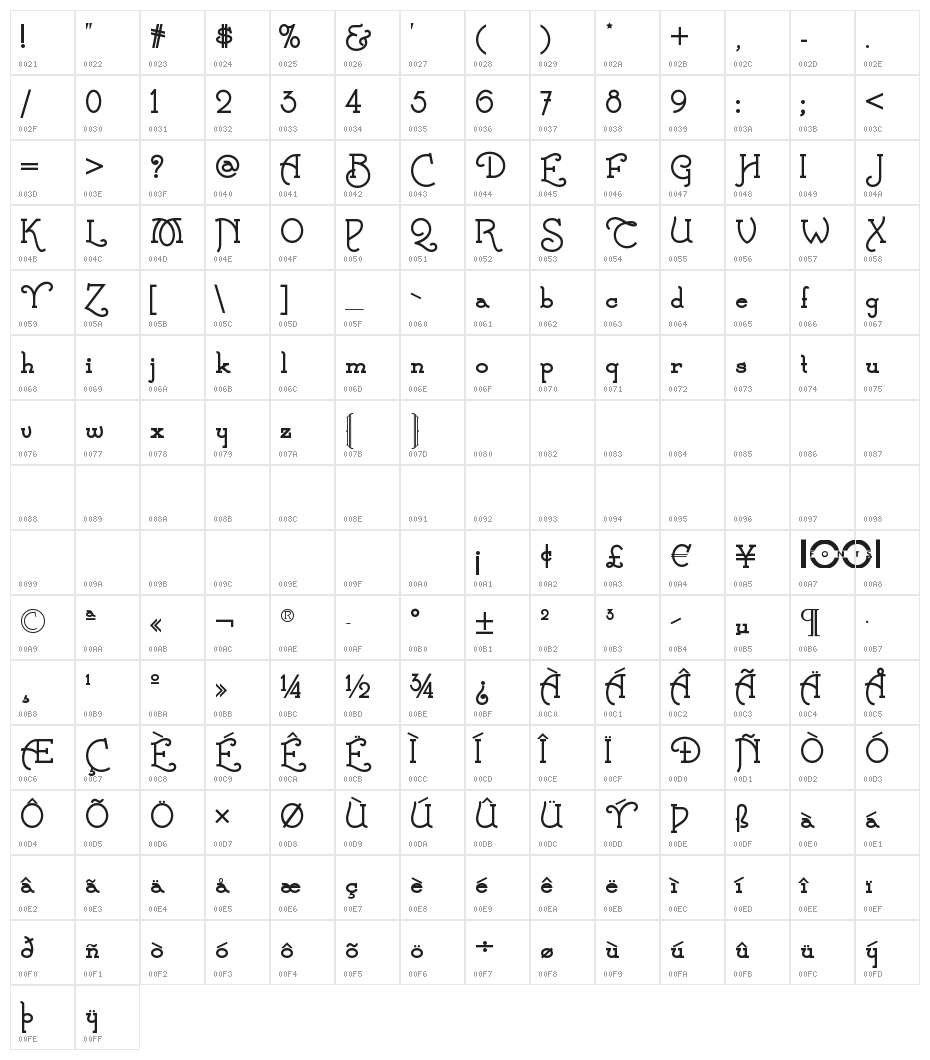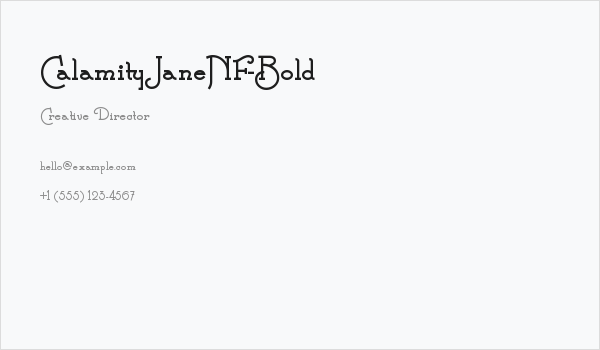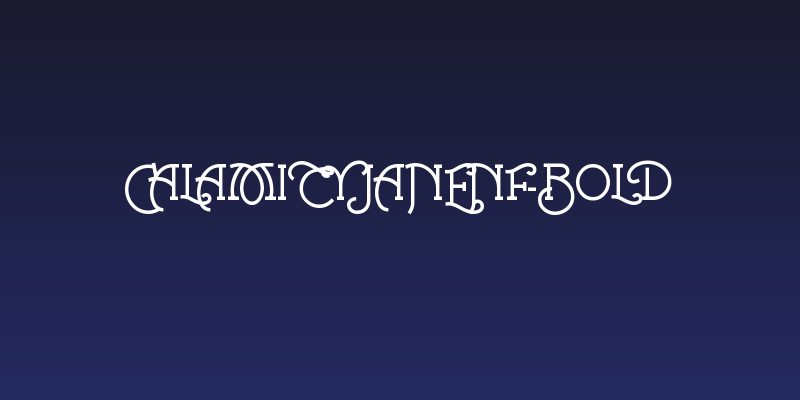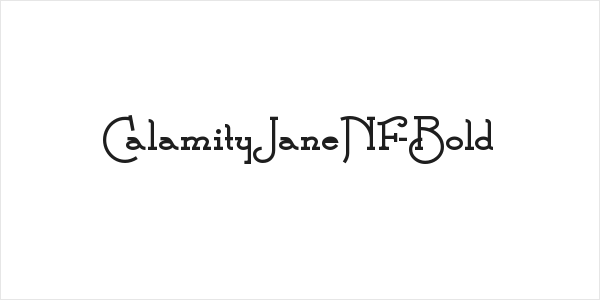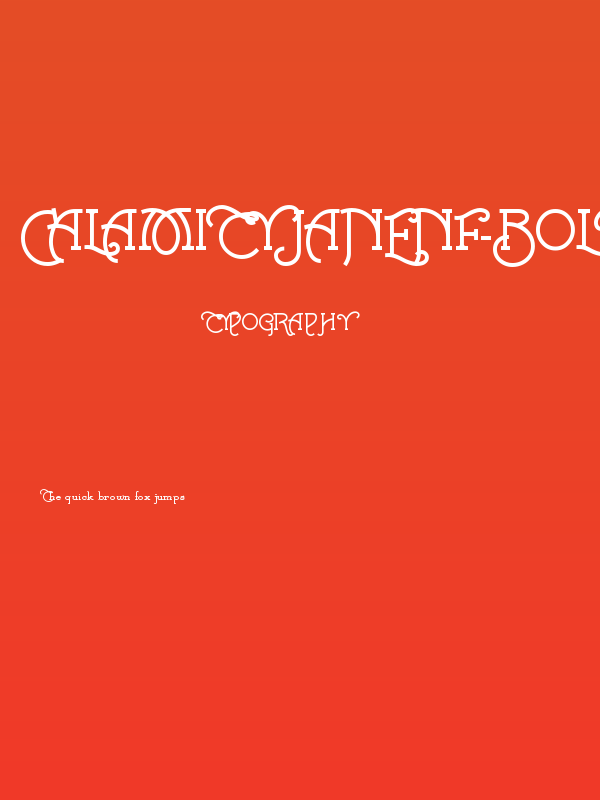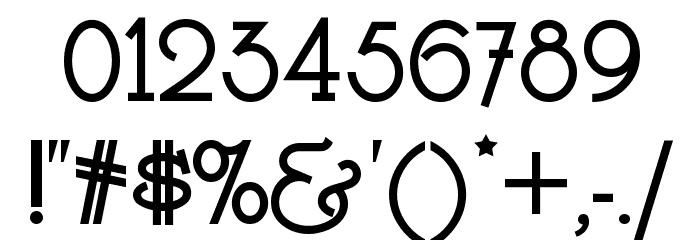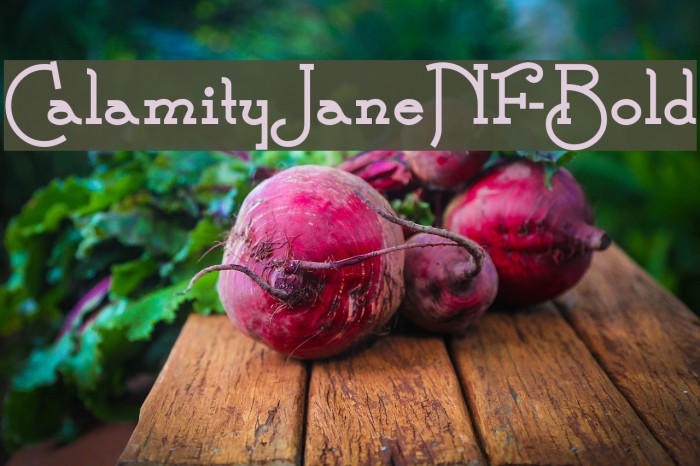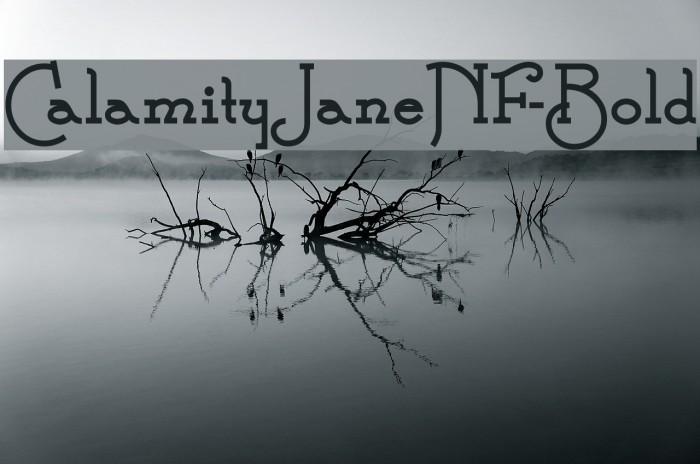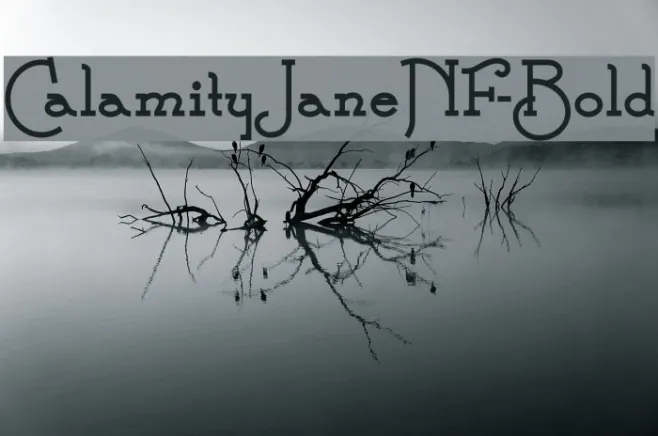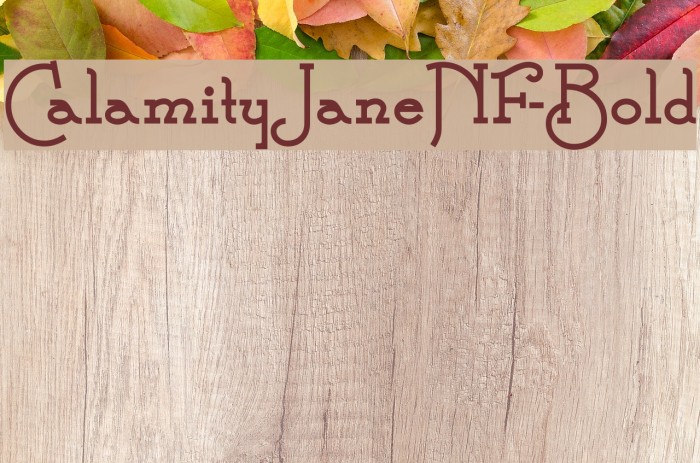
CalamityJaneNF-Bold Font
CalamityJaneNF-Bold Description
This font features a bold and decorative style with a unique blend of vintage and western influences. The uppercase letters are characterized by their intricate curves and flourishes, giving them a distinctive and ornamental appearance. The lowercase letters maintain a more straightforward yet complementary design, ensuring readability while preserving the font's decorative nature. The numerals are bold and consistent with the overall style, making them stand out effectively. Special characters are creatively designed, adding to the font's playful and artistic appeal. This font is perfect for projects that require a touch of nostalgia and flair.